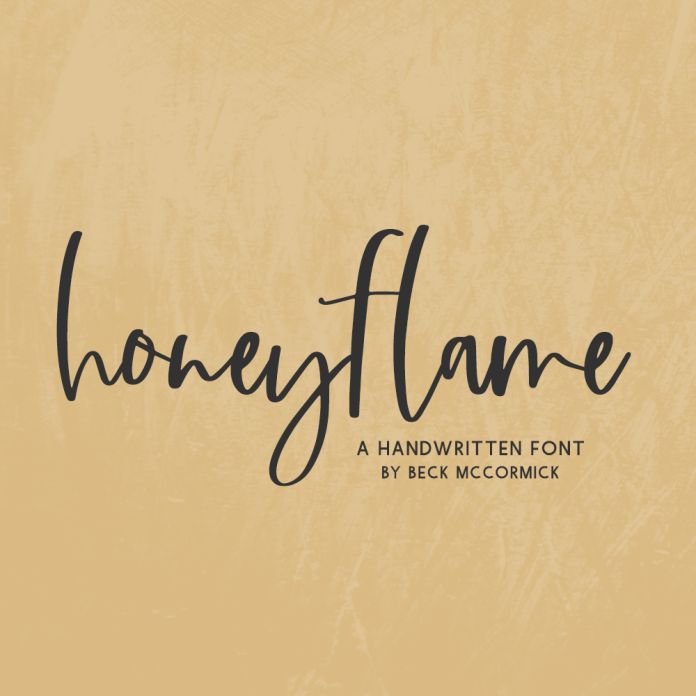
Honeyflame Script Font
Introducing Honeyflame, a modern handwriting font script. Honeyflame is best for: - wedding invitations, wedding favors, or wedding decor - farmhouse decor and crafts - logos + branding - digital planners & apps like Goodnotes - website design + website accents, blog design - clean print design, like magazines + flyers - header elements that need handwritten touch - quote graphics for social media - feminine graphic tee shirt design & other apparel Honeyflame includes: - full upper + lowercase characters - numbers + punctuation - Western European Language Support - PUA-encoding